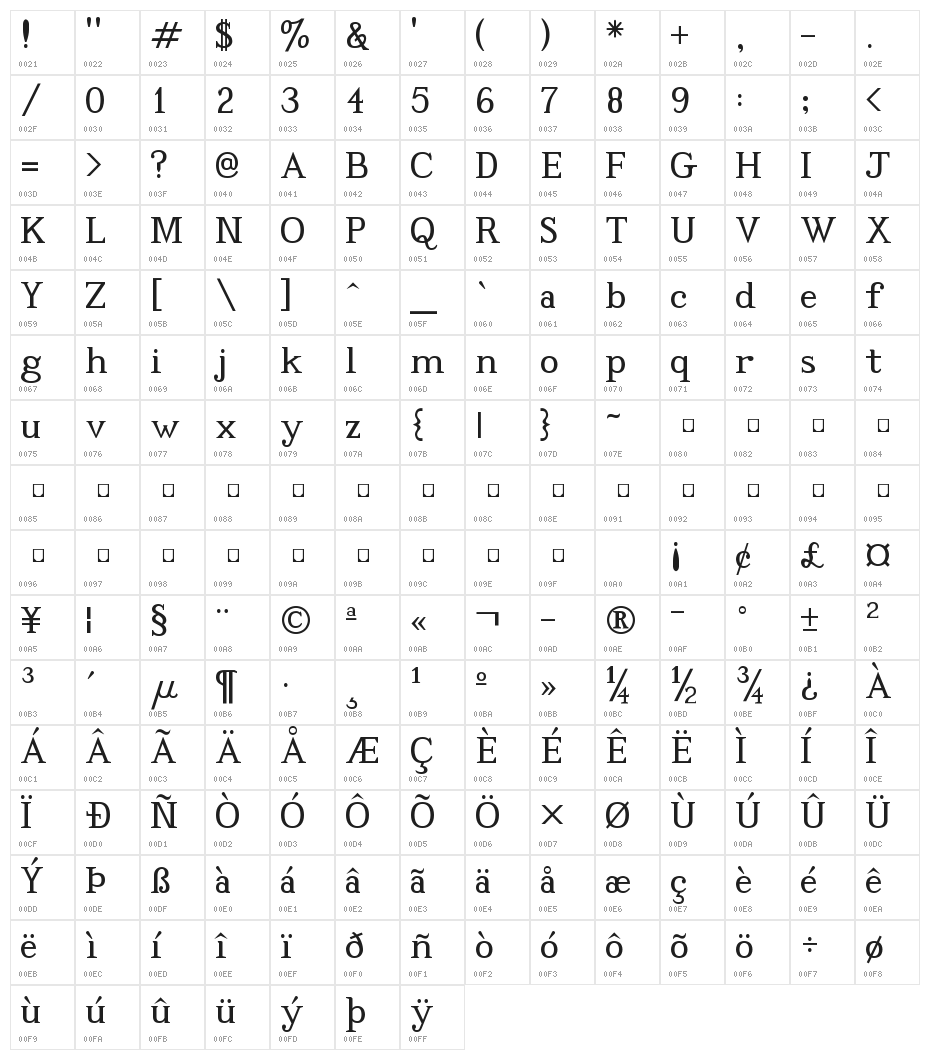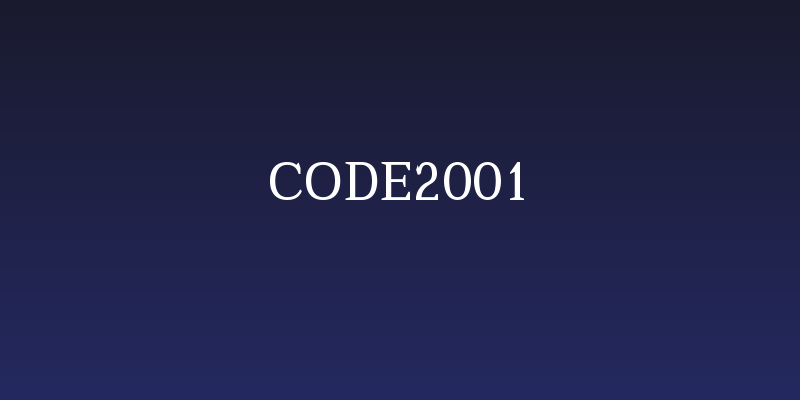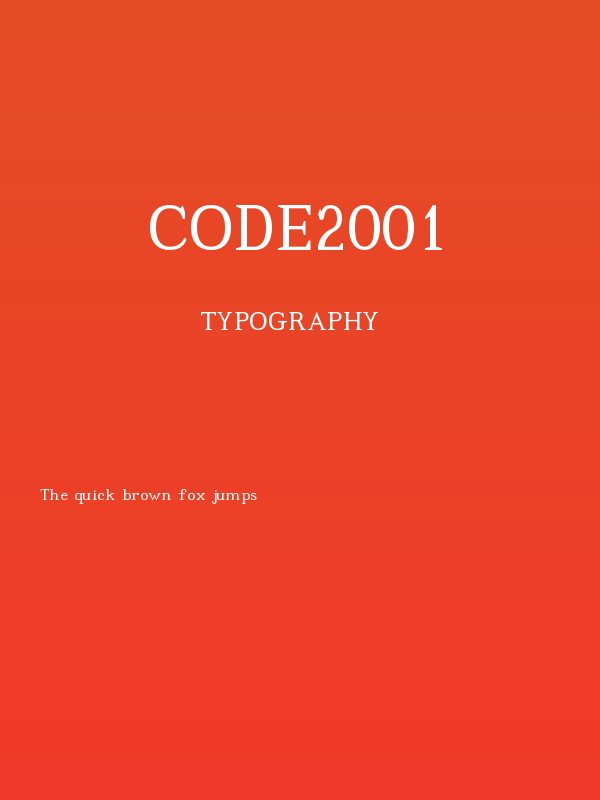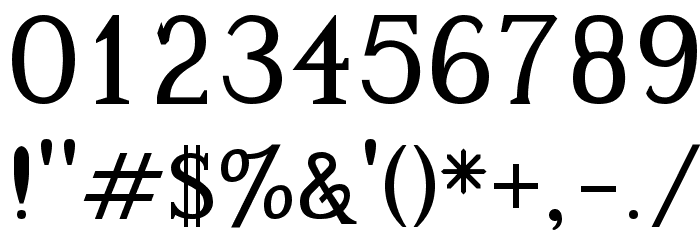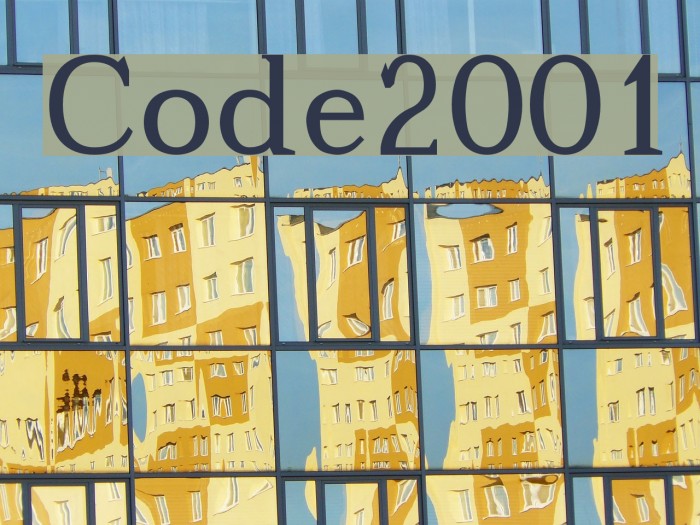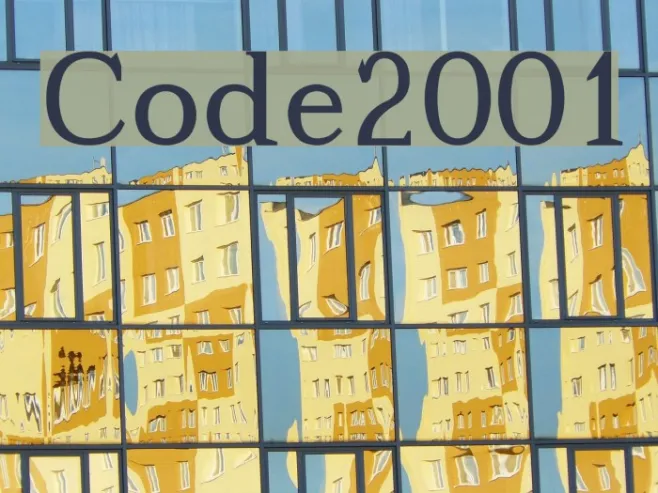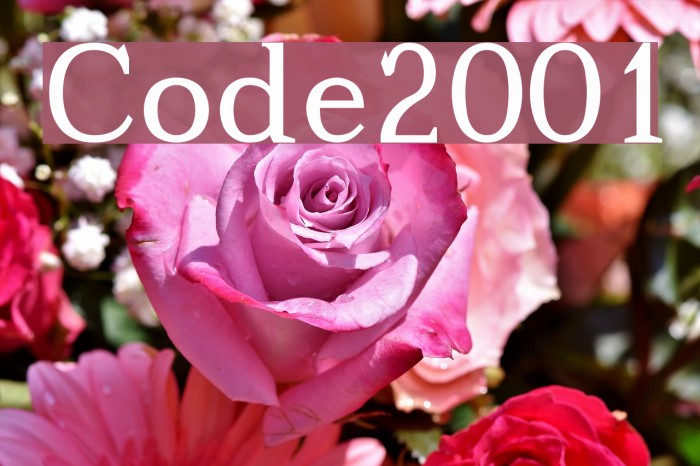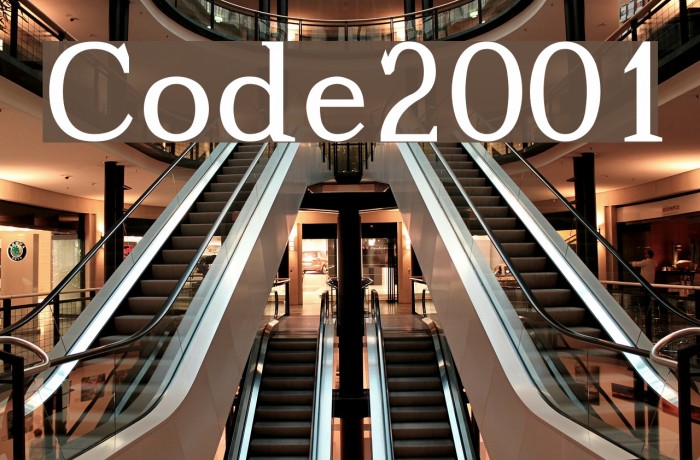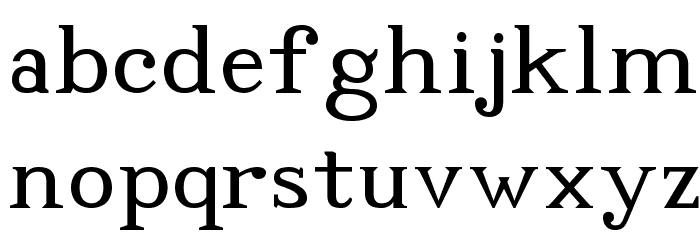
Code2001 Font
Code2001 Description
This font features a classic serif style with a balanced and elegant appearance. The uppercase letters are bold and prominent, while the lowercase letters maintain a consistent and harmonious flow. The numerals are clear and easy to read, making them suitable for various applications. The special characters are well-defined, adding versatility to the font. The overall design is timeless, with a moderate contrast between thick and thin strokes, enhancing readability. This font is suitable for both digital and print media, offering a professional and polished look.
| Proposed Projects | Ideal for editorial design, book covers, formal invitations, and corporate branding. |